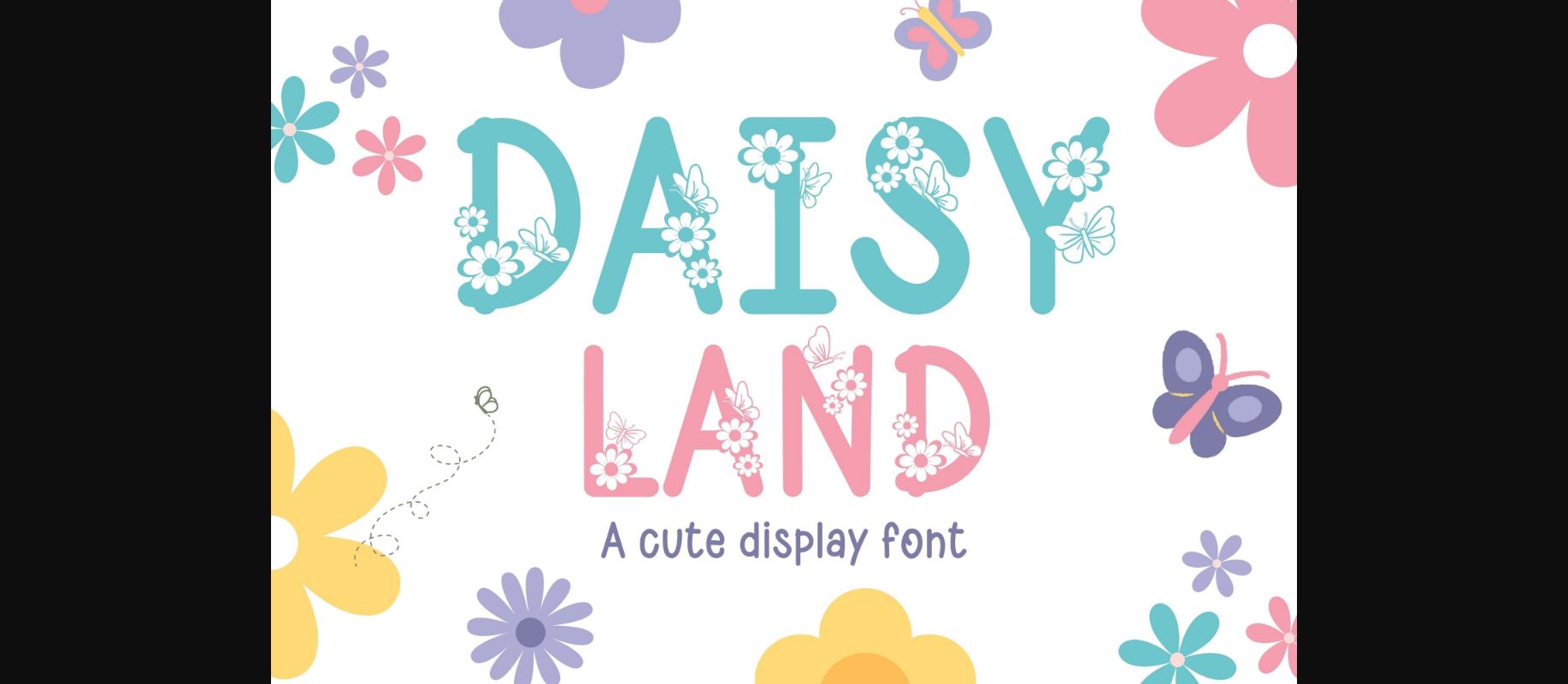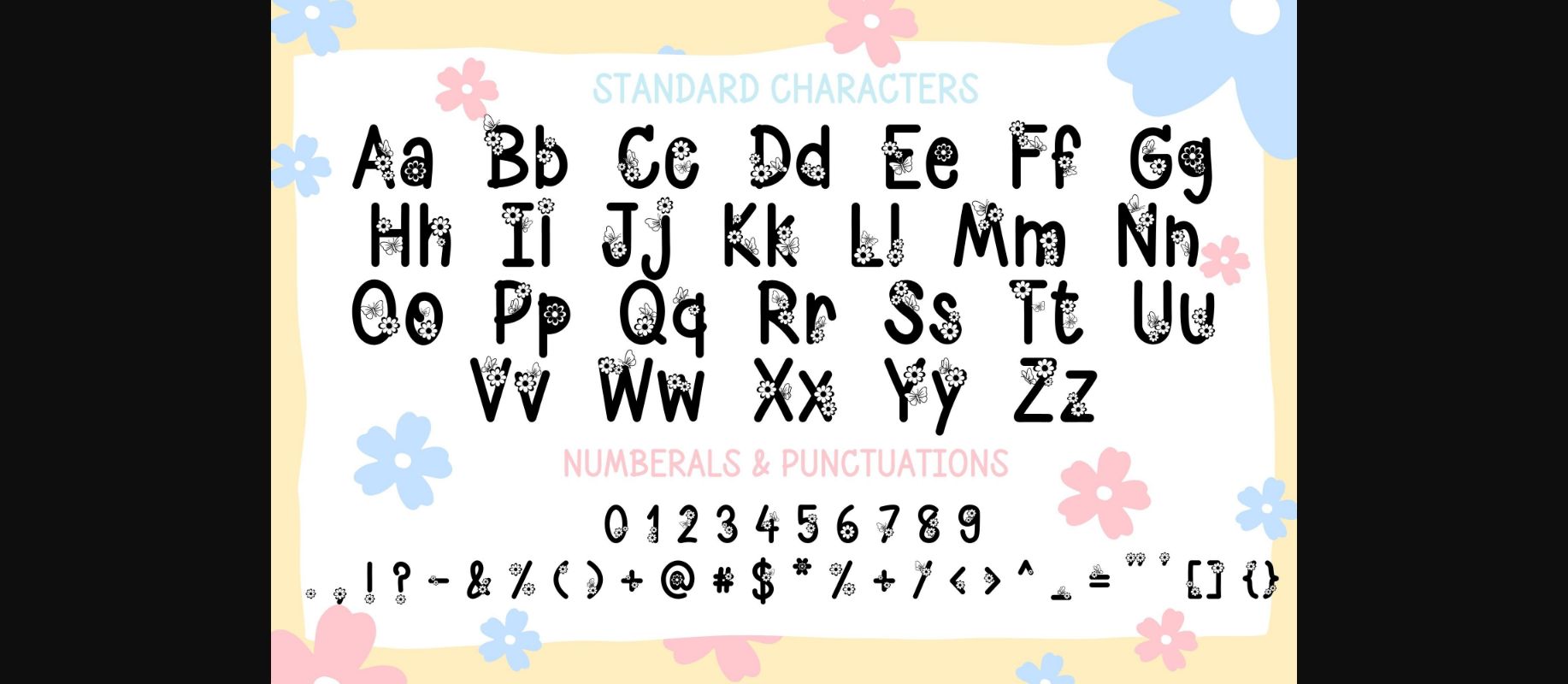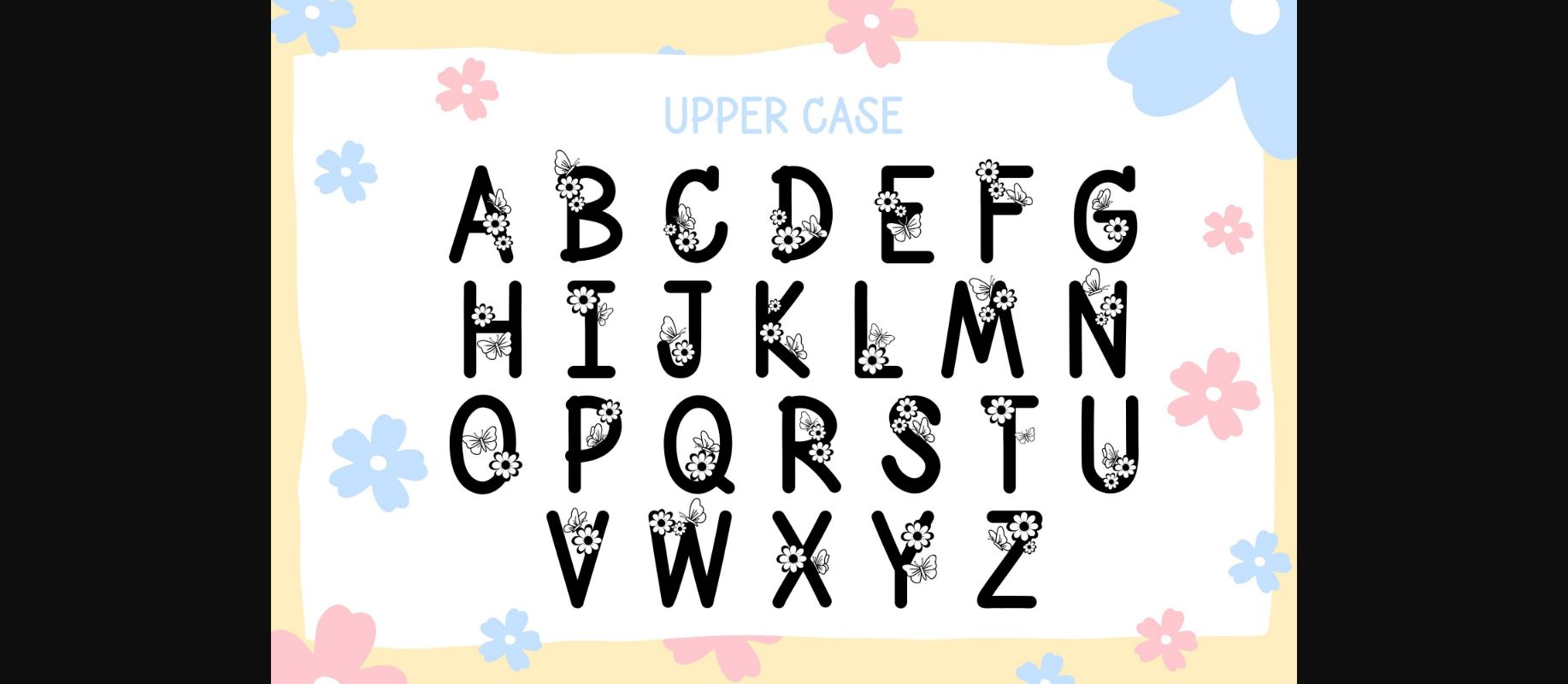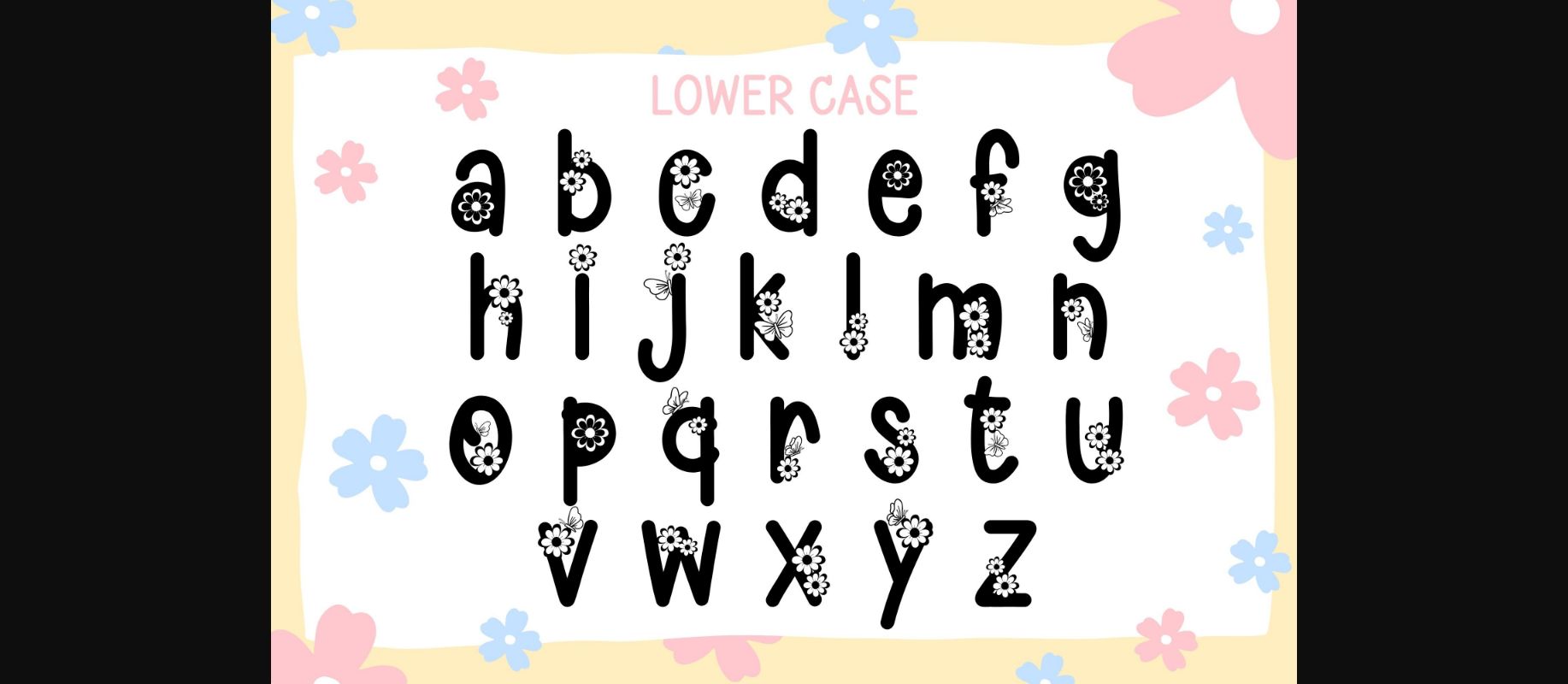
About Daisy Land Font
Daisy Land is a fun decorative display font, perfect for designs that need a playful, cheery accent. Daisy Land is suitable for book covers, posters, packaging, merchandise, logotypes, and many more!